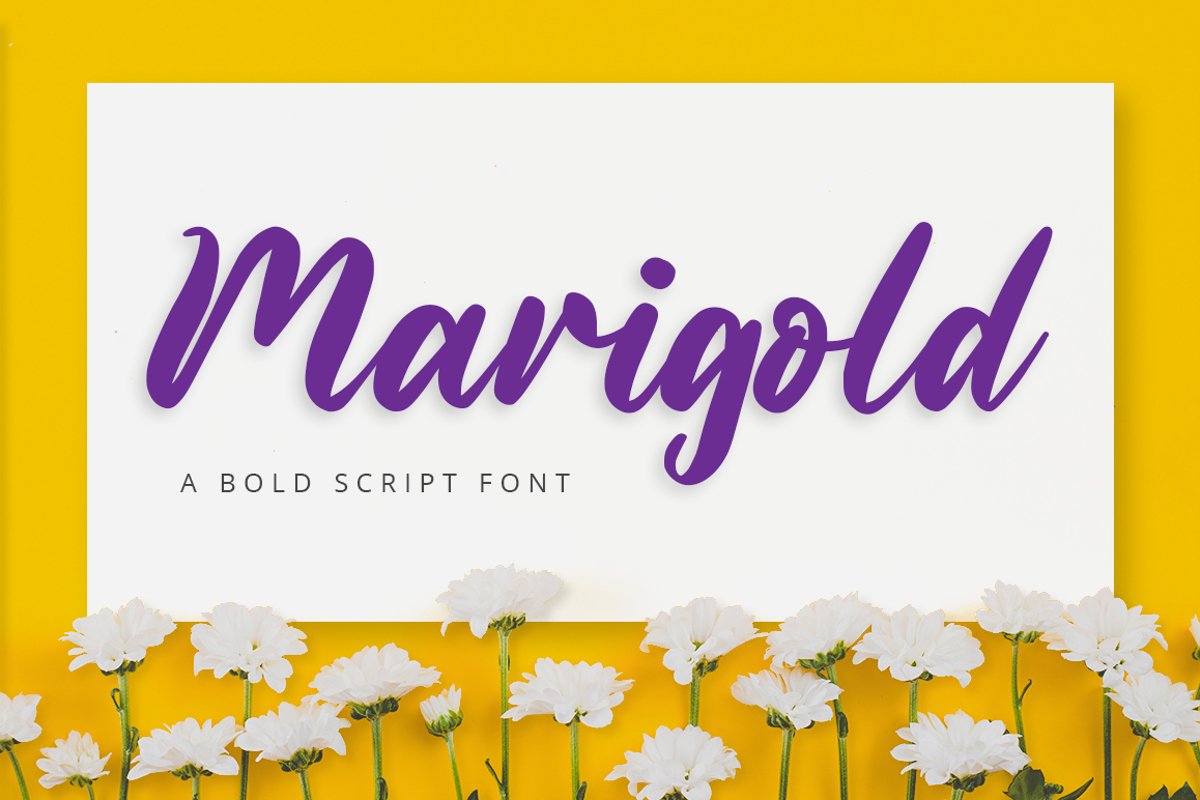
Marigold is a Modern Script Typeface. Perfect for quotes, business card, name card, wedding needs, birthday needs, logo, merchandise, packaging, branding, and any more.